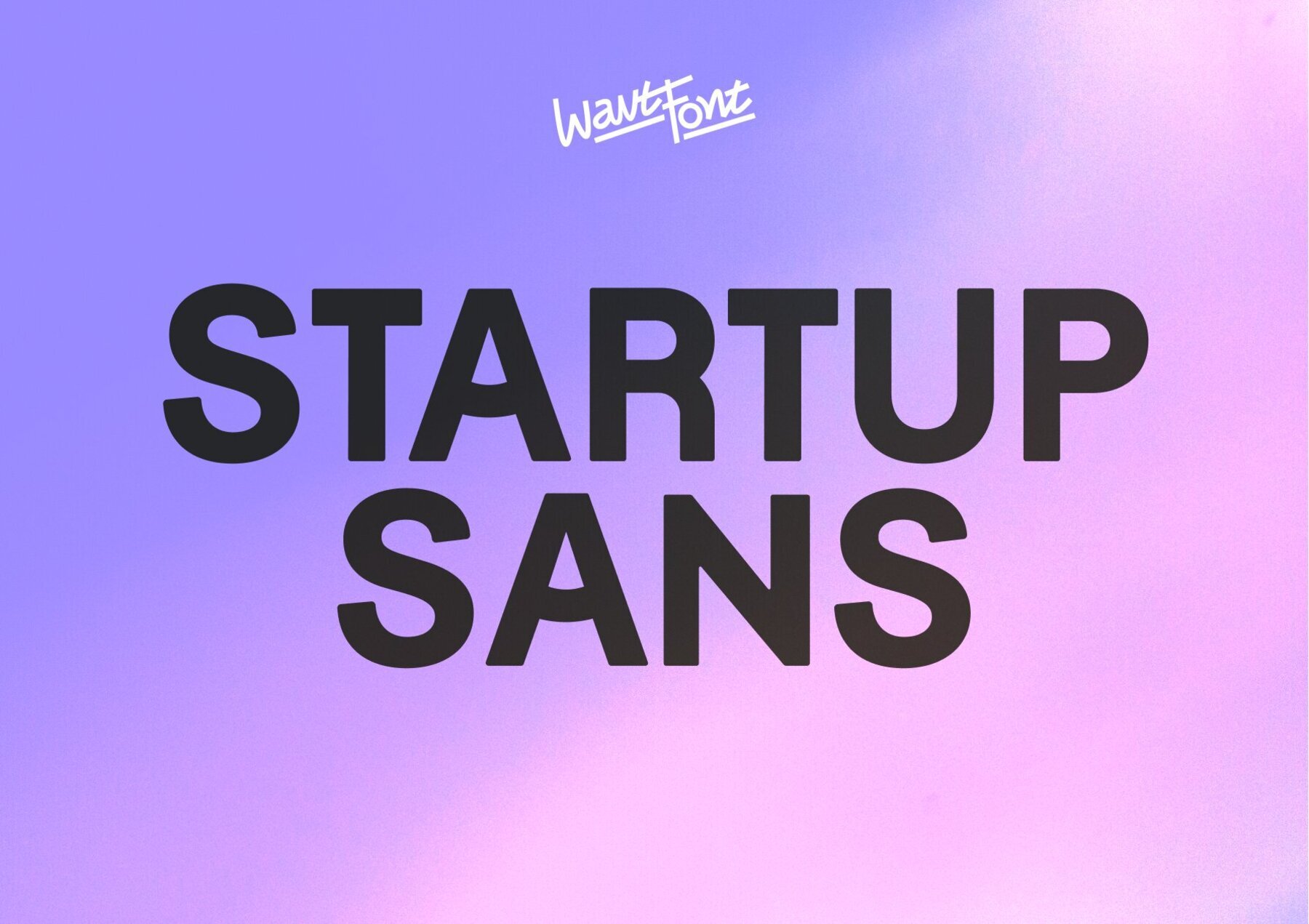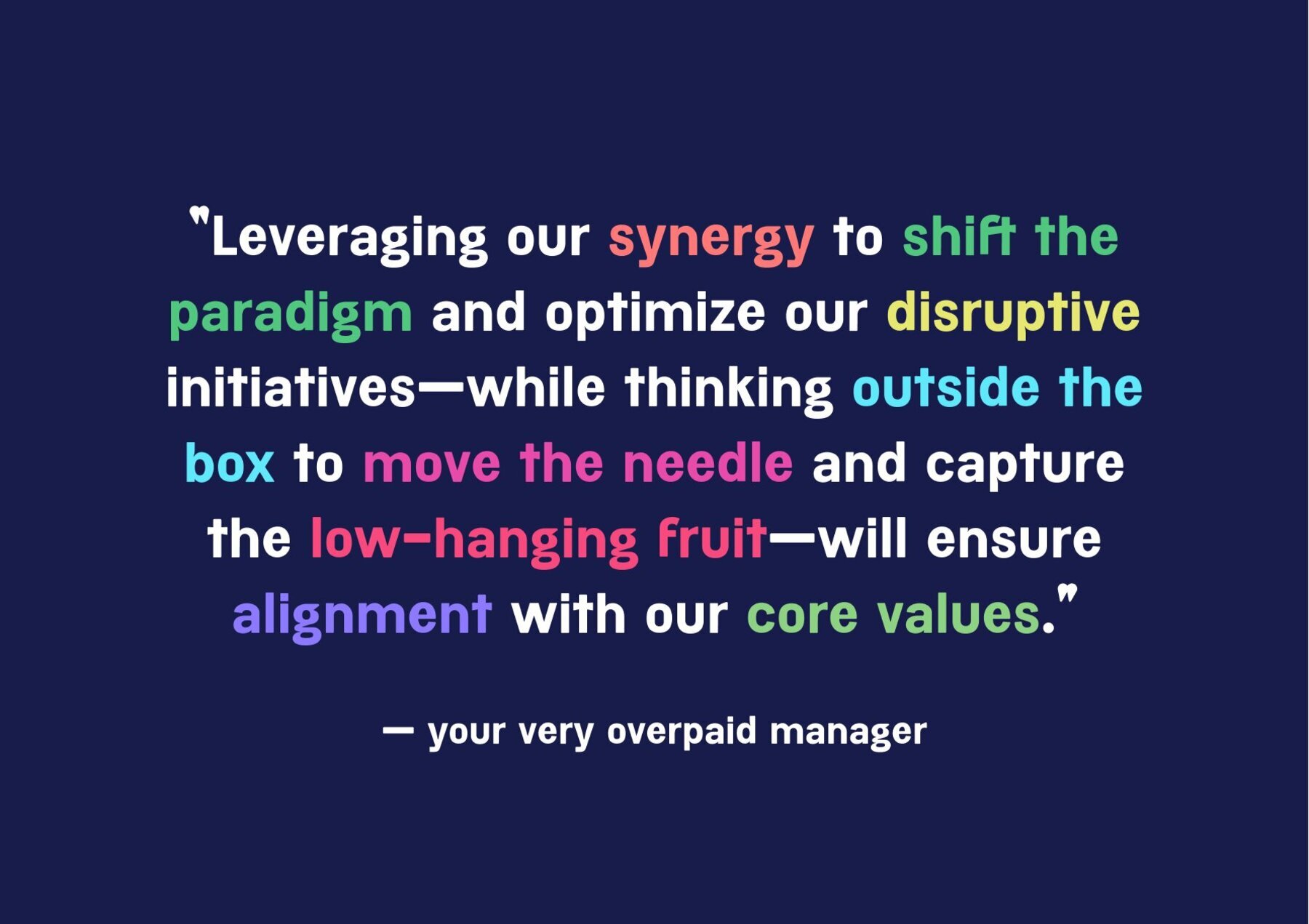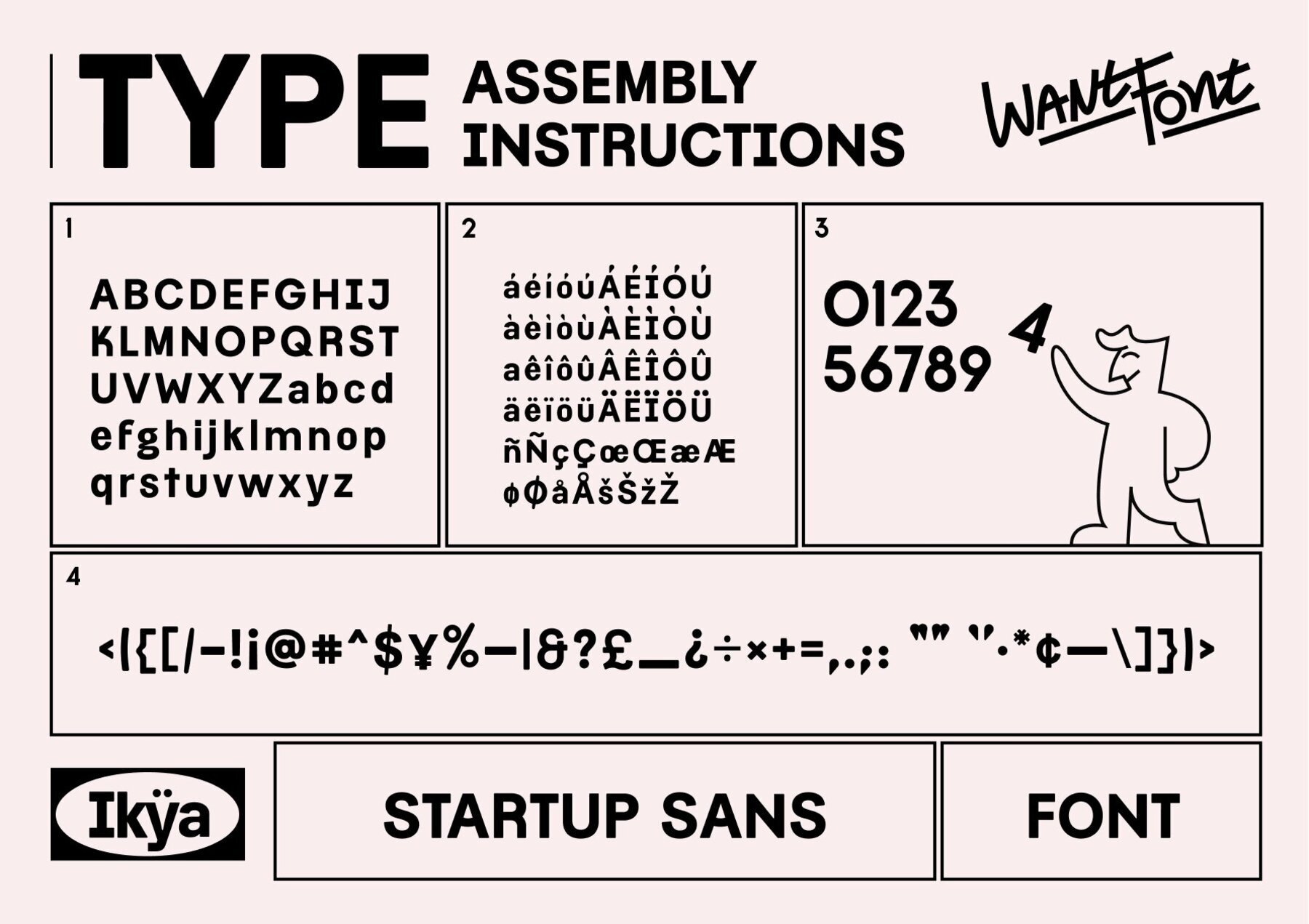
Startup Sans Font
Startup Sans is designed to meet your business branding needs. This font includes a complete uppercase and lowercase alphabet, numerals, essential accents, and commonly used symbols. Perfect for giving your startup a modern and professional look.